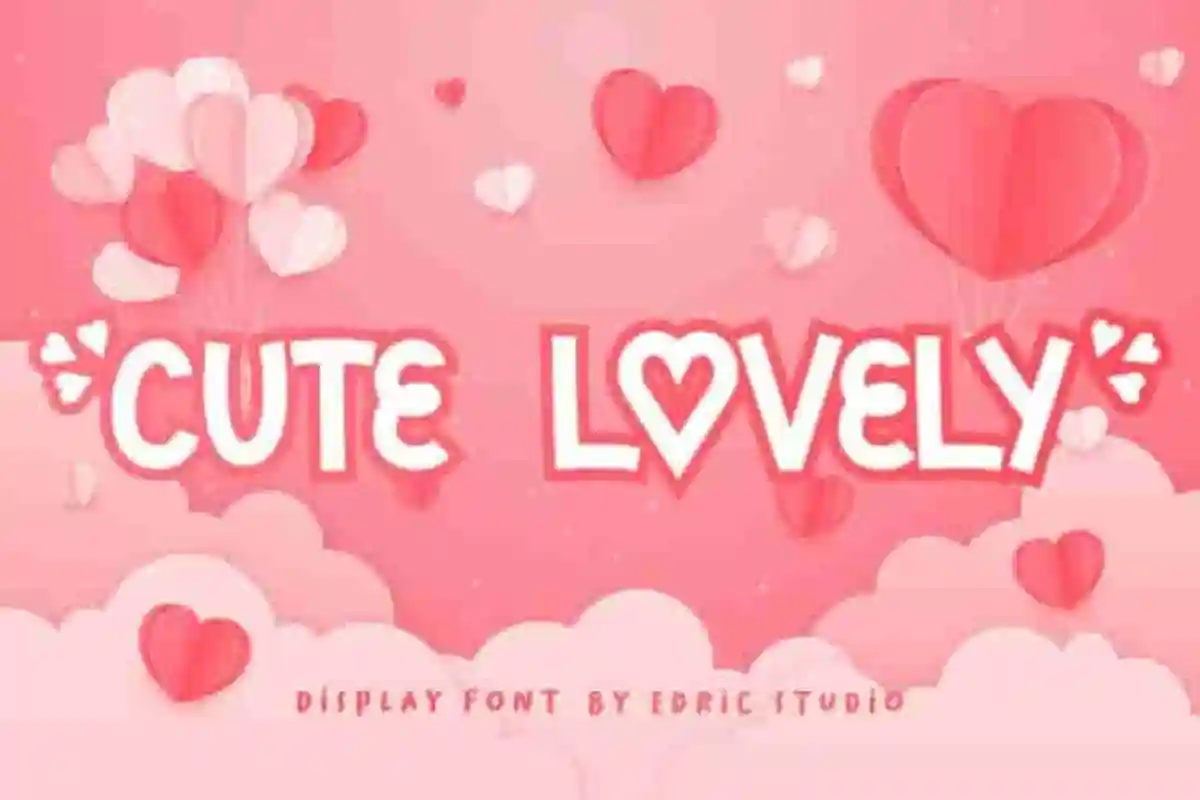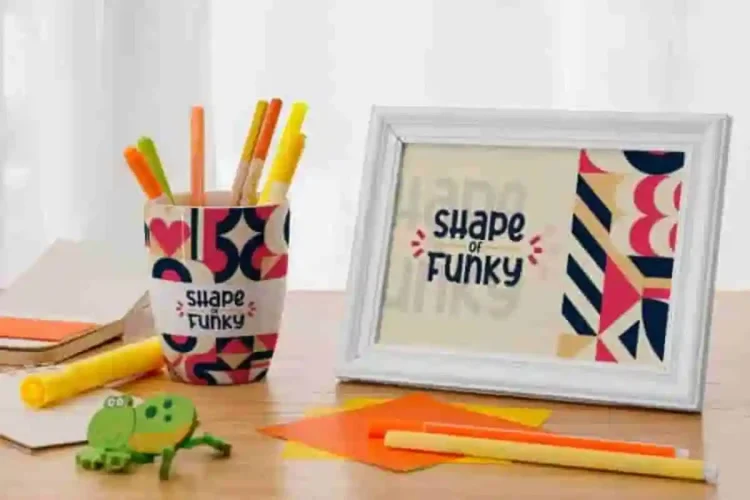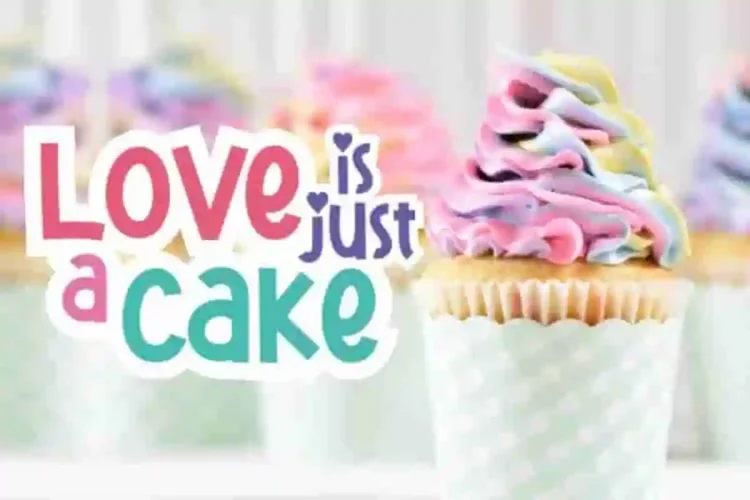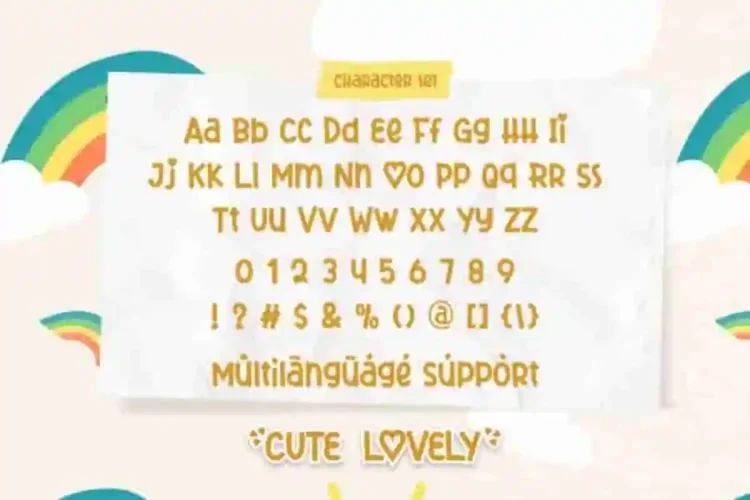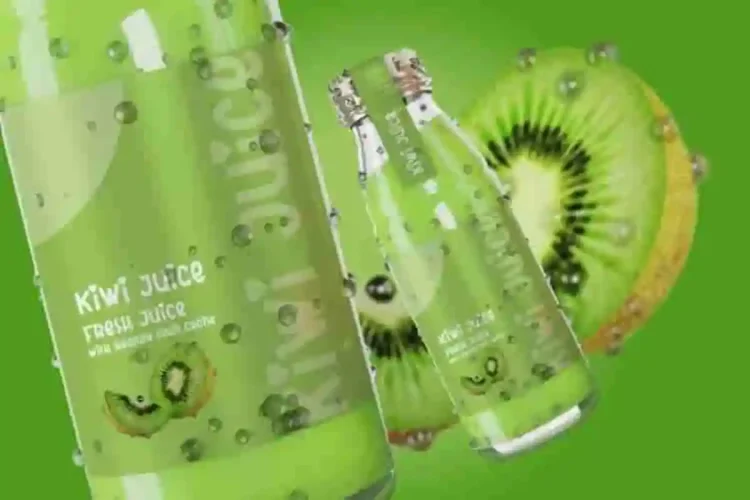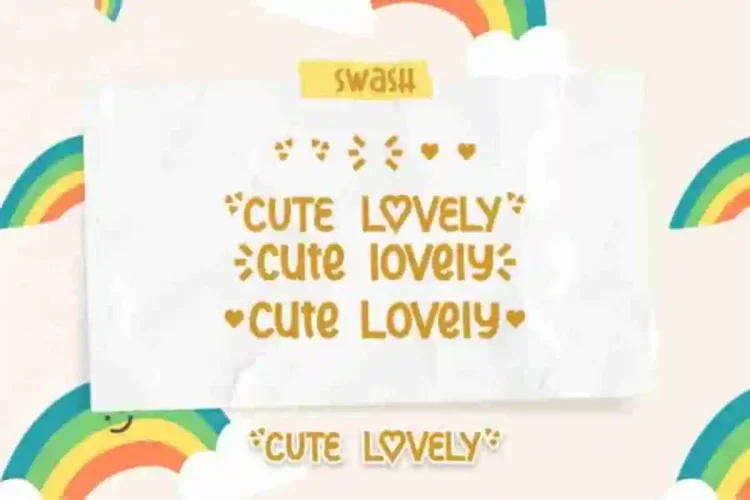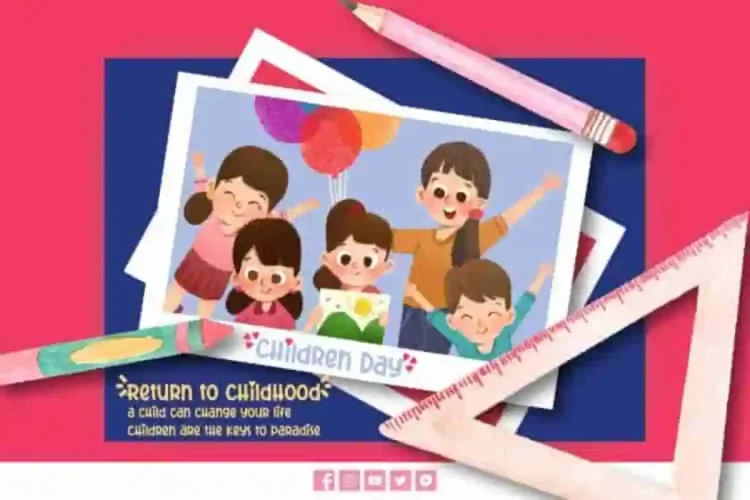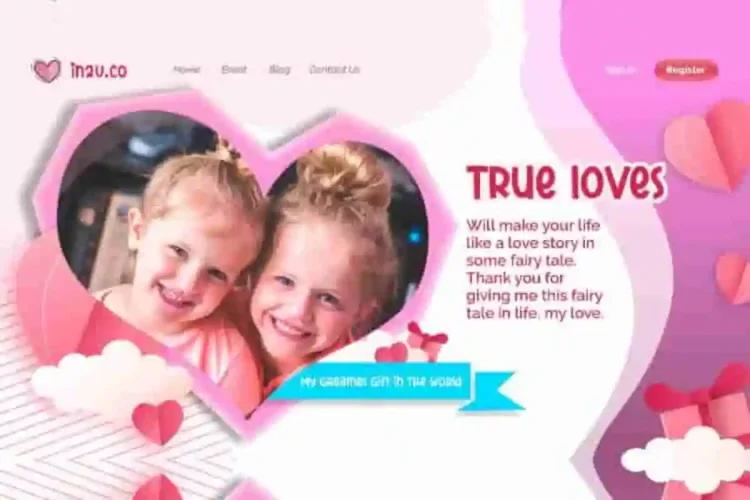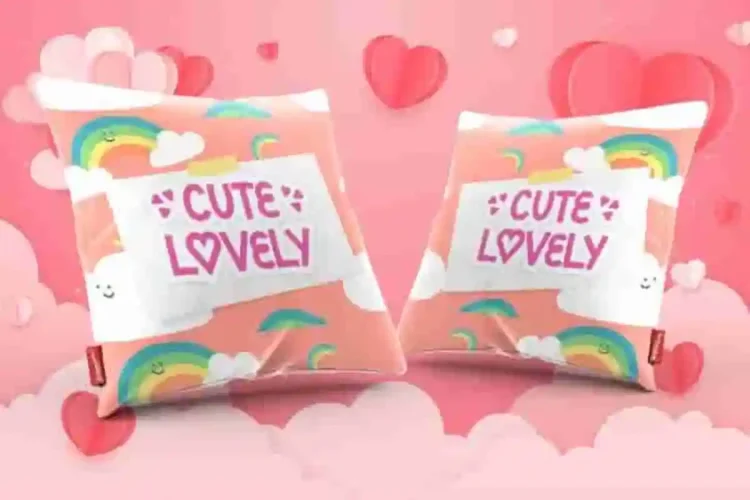
Cute Lovely Modern Display Font
Cute Lovely Display Font is a san serif display font with love in the making. Its cute shape will be able to give the natural romantic and cute versions created. Suitable for products or works that require cute, love, fun and awesome cartoon vibes.
Cute Lovely Display Font This font is an easy-to-read display font that conveys impeccable friendliness. Plus, it supports multilingual characters, ensuring your designs can connect with audiences worldwide.